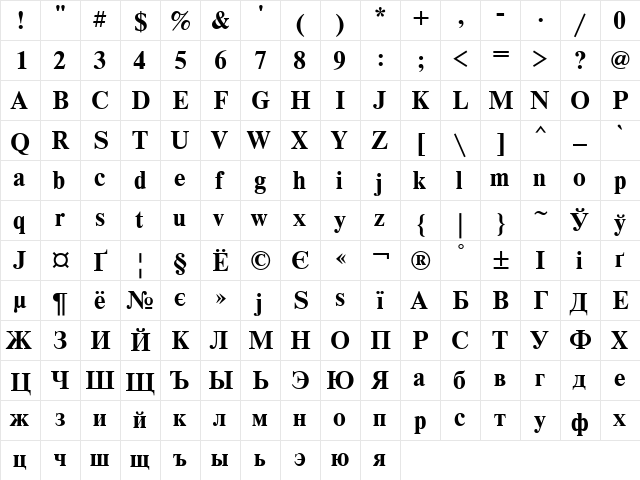
NewtonCTT Bold
Design Context for NewtonCTT Typeface
NewtonCTT is a composed and adaptable typeface that performs quietly and consistently across a wide range of design contexts. The heavy weight commands attention and anchors typographic hierarchies.
Pro Tip: Use NewtonCTT in both headline and body roles to test its range before committing to a single application.